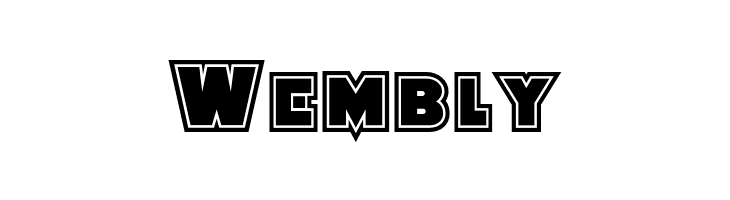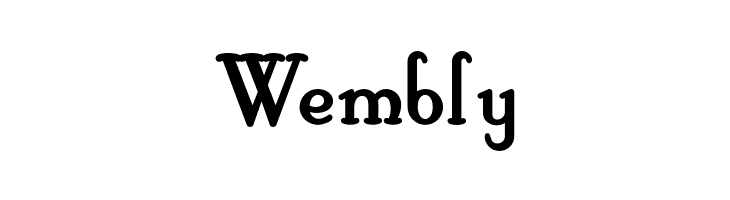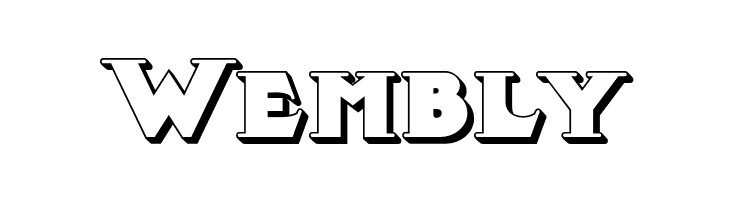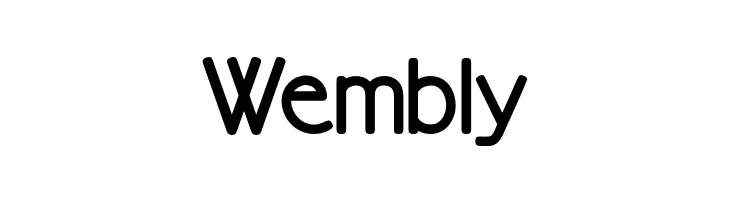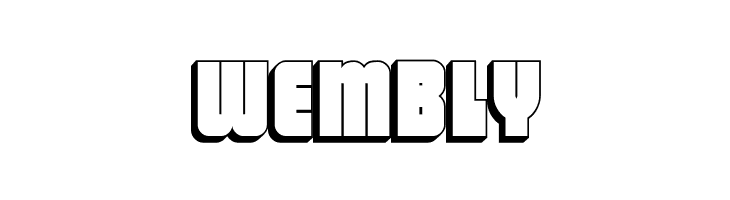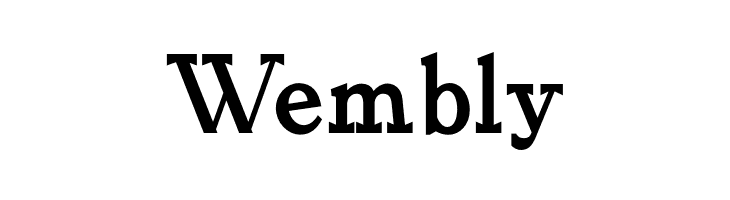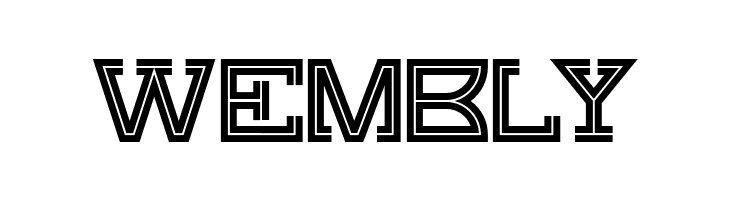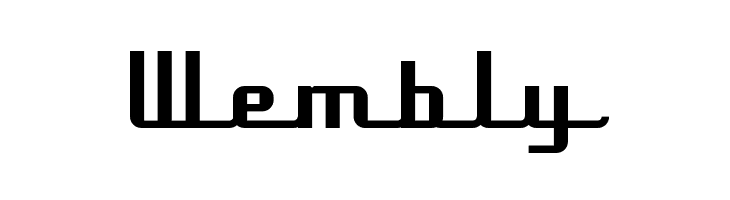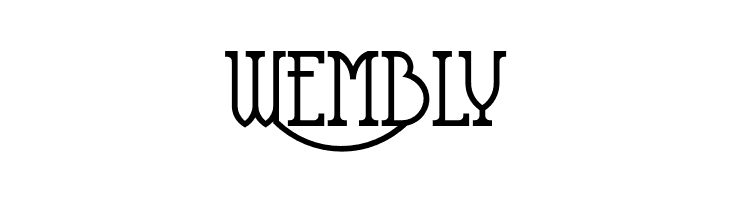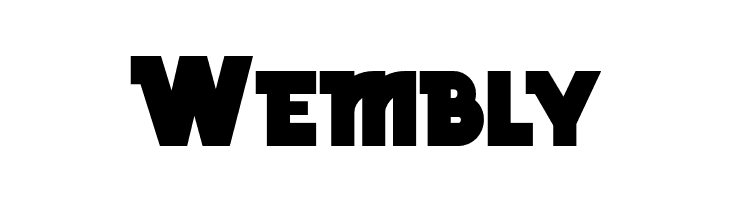
A bold, geometric font with a three-dimensional outline effect.
A playful, vintage-inspired serif font with bold, rounded characters.
A bold, shadowed font with a vintage flair, perfect for standout headlines.
A decorative font featuring bold, stylized pictograms and symbols.
A playful, rounded font with smooth curves and uniform strokes.
A bold, three-dimensional font with a strong, playful presence.
A bold serif font with a classic yet modern style.
A bold, geometric font with a double-line structure and futuristic appeal.
A bold, playful font with a 3D effect and blocky geometric design.
A modern, geometric font with a blend of bold and script elements.
A playful and whimsical font with vintage theatrical flair.
A bold, geometric font with striped patterns and strong visual impact.
An ornate and elegant serif font with decorative uppercase letters.
A bold, geometric font with strong, uniform strokes and a striking presence.
A bold, high-contrast decorative font with dramatic serifs.
A bold, geometric font with strong, uniform strokes and a modern appeal.
A bold, vintage-style font with high contrast and sharp serifs.
An elegant, decorative font with intricate, ornate letterforms and a vintage flair.
A bold, geometric font with sharp angles and a dynamic style.
A bold, playful font with exaggerated curves and a whimsical style.
A bold, decorative font with tribal-inspired patterns inside each character.
A bold, high-contrast font with sharp, angular edges and a modern aesthetic.
A bold, geometric font with high contrast and modern, abstract shapes.
A bold, modern font with high contrast and geometric shapes.
A bold, geometric font with a futuristic, outlined style.
A bold, geometric font with futuristic cut-out shapes.
A bold, slab serif font with a vintage yet modern appeal.
A bold, geometric font with playful and dynamic character designs.
A bold, inline font with geometric and playful characteristics.
A bold, geometric font with a futuristic and dynamic style.
A bold, angular font with a futuristic and geometric design.
A bold, modern font with thick strokes and a strong presence.
An elegant and artistic font with flowing lines and decorative flourishes.
A bold, playful font with decorative swashes and high contrast.